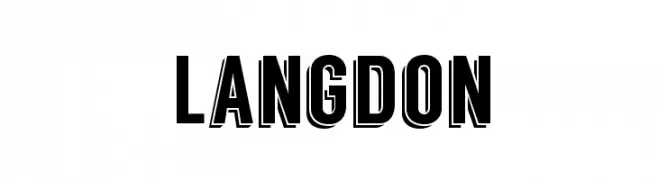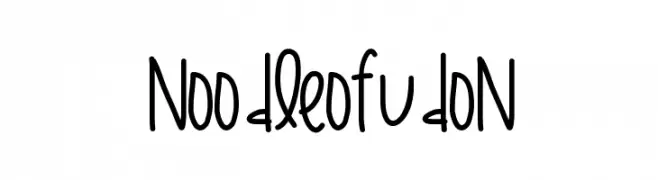
A bold, hand-drawn font with a raw and expressive style.
A bold, decorative font with a playful, outlined style.
An ornate blackletter font with bold, intricate designs and sharp, angular edges.
A distressed, grunge-style font with a textured, vintage appearance.
A bold, decorative font with a layered, neon sign-inspired design.
A bold, hand-drawn font with an edgy, irregular style.
A whimsical, playful script font with elegant, flowing cursive letters.
A decorative, geometric font with abstract and artistic elements.
A playful, bold font with rounded, bubble-like characters.
A whimsical, swirly font with a playful and artistic design.
A bold, playful font with rounded edges and a modern-retro charm.
A vintage, hand-drawn font with bold outlines and a playful aesthetic.
A playful, casual handwritten font with smooth, flowing lines.
A playful, hand-drawn font with a whimsical and casual style.
A bold, serif font with strong strokes and a classic, authoritative style.
A bold serif font with a classic yet modern style, featuring strong serifs and consistent strokes.
A playful, casual handwritten font with fluid, connected strokes.
A playful, handwritten font with tall, narrow letters and a whimsical style.
A playful, handwritten font with fluid, dynamic strokes.
A playful, handwritten font with smooth, rounded strokes and a casual feel.
A playful, hand-drawn font with rounded, whimsical characters.
A decorative display font mimicking popular brand logos.
A bold, wave-patterned font ideal for impactful and creative designs.
Outlined floral dingbat font with diverse flower shapes.
A flowing, cursive script font with elegant, handwritten calligraphy style.
A bold, eclectic display font with punk and retro influences.
An elegant script font with flowing, cursive style and sophisticated flourishes.
A bold blackletter font with intricate decorative swirls.